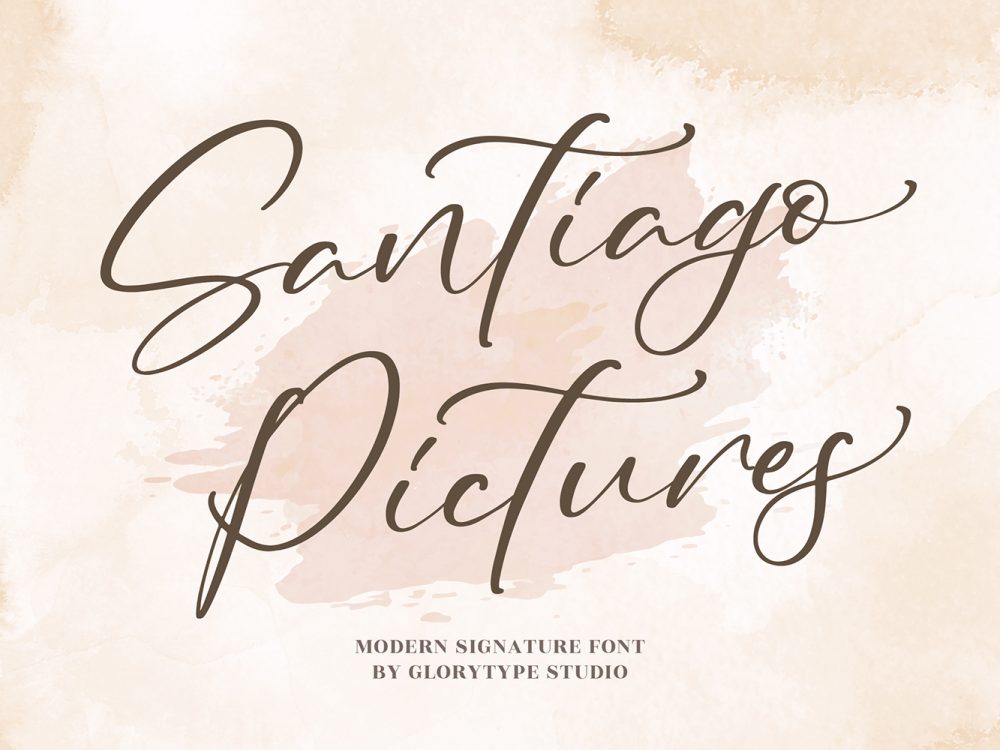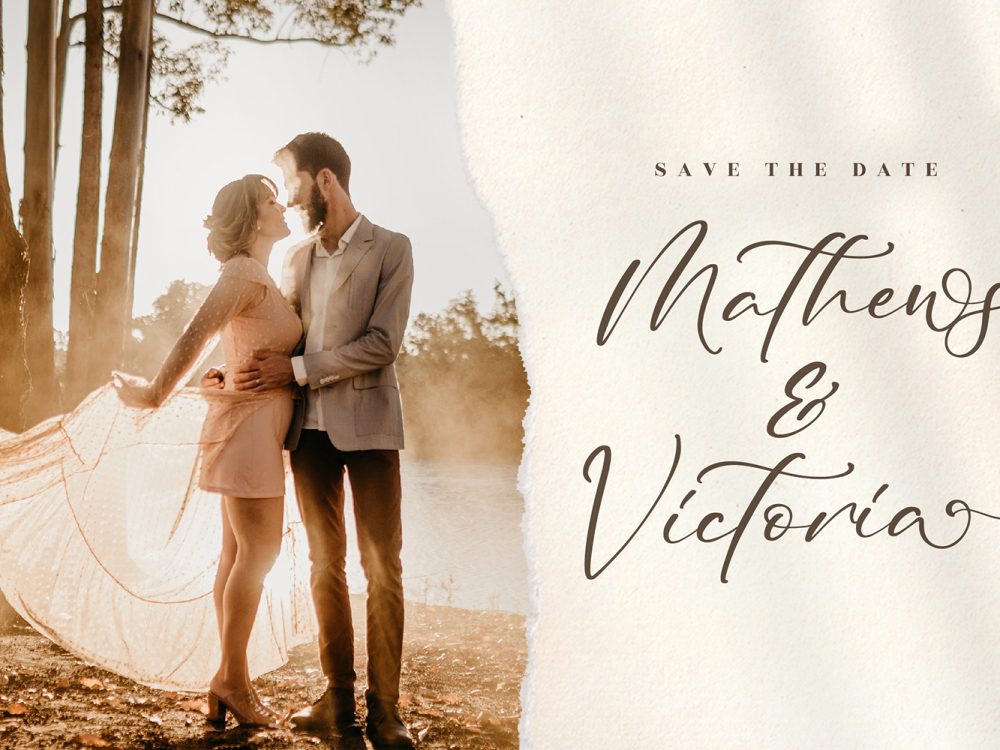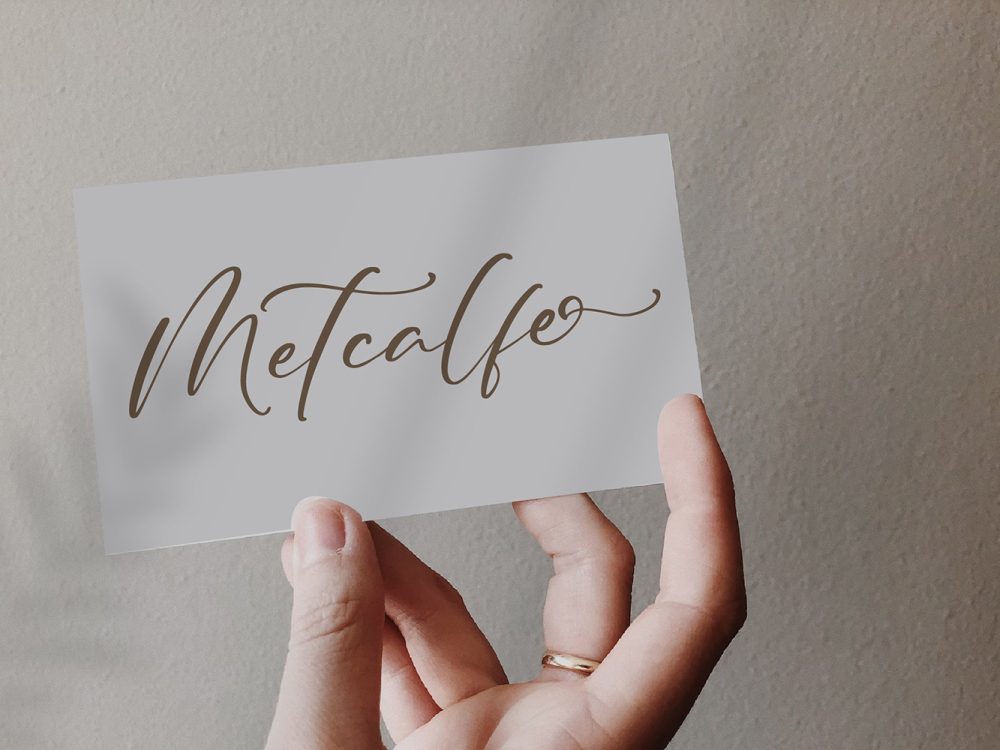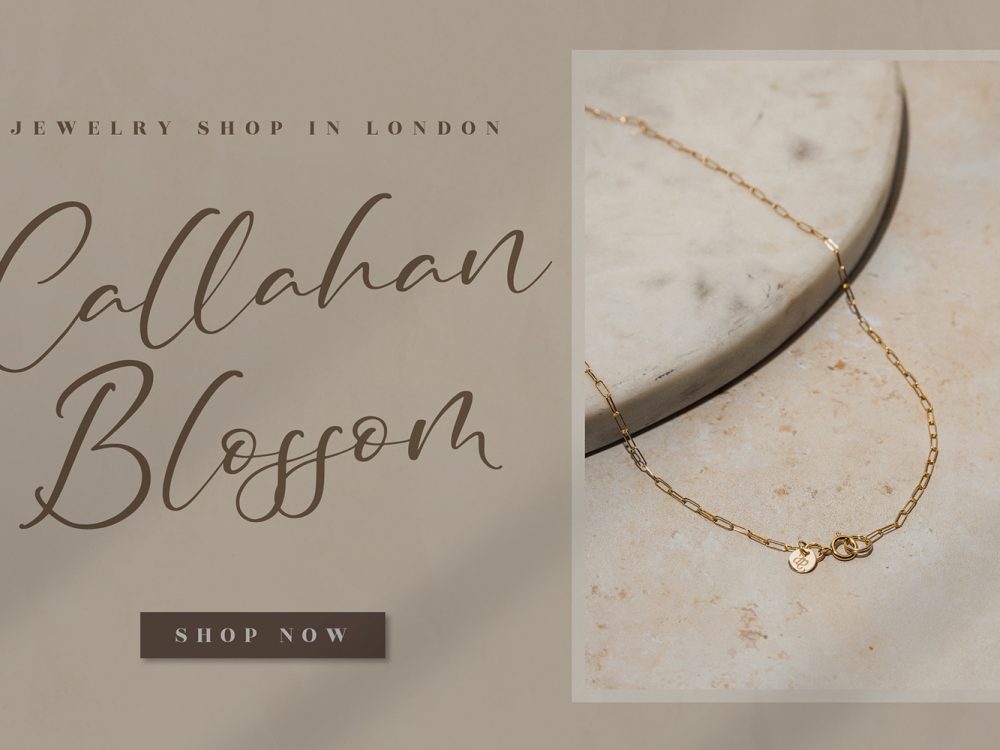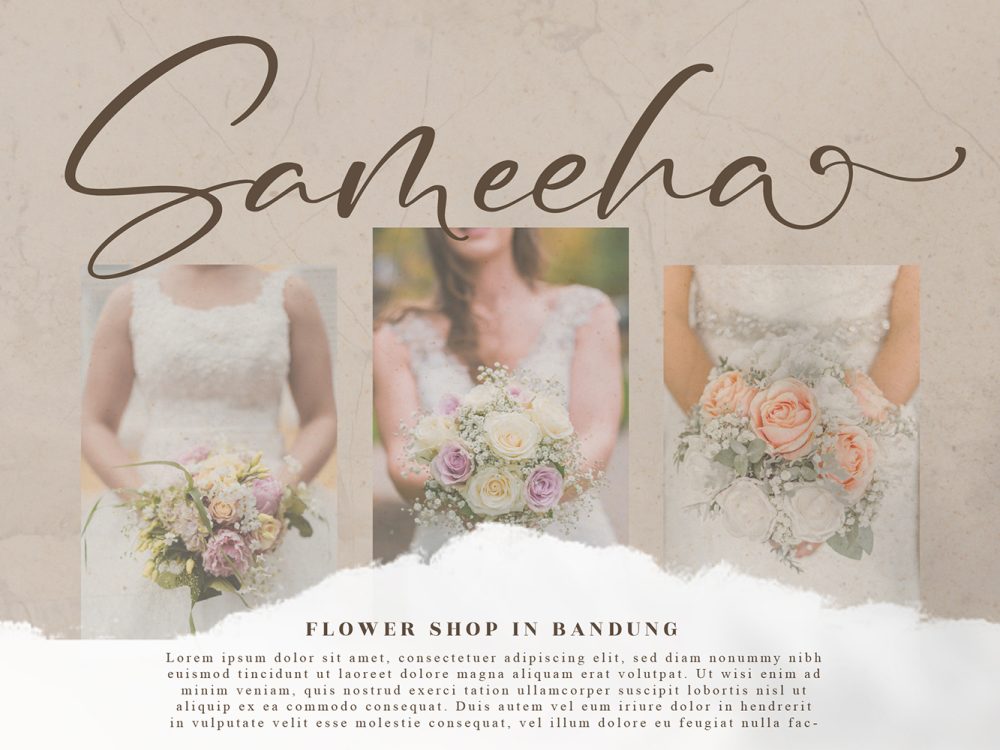
Santiago Pictures Free Font
Santiago Pictures Free Font exudes an irresistible charm paired with an inherent elegance. Its visual appeal shines brilliantly on wedding invitations, thank-you cards, quotes, greetings, logos, business cards, and any design requiring a personal handwritten flourish. If you like it don’t forget to check out the full version.